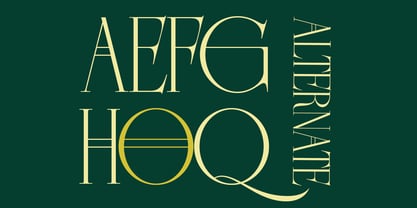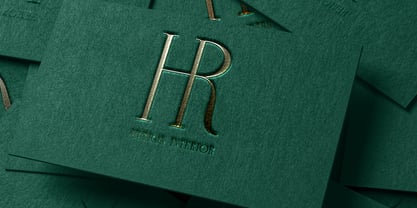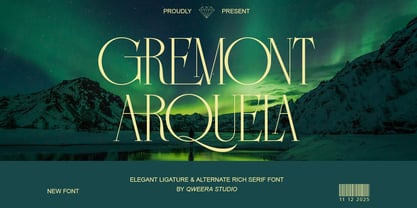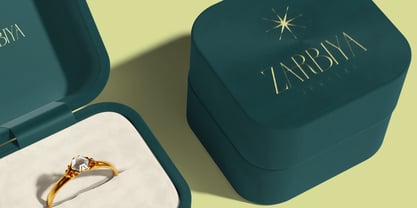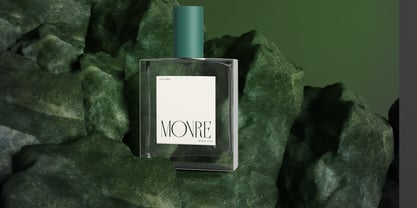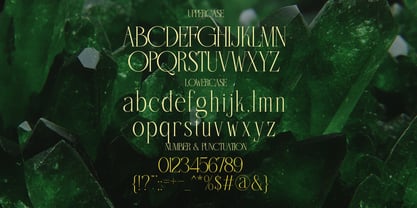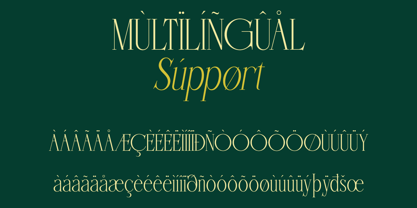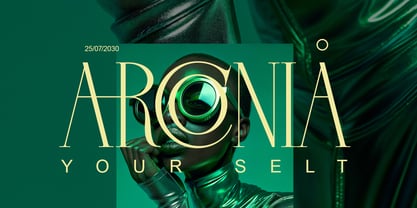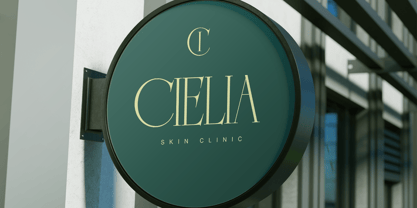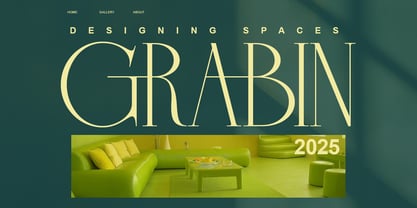
Gremont Arquela
The Gremont Arquela Font Family was designed by Idhham Cholid Rikzano Yahya and published by Qweera Studio. Gremont Arquela contains 2 styles and family package options. More about this family
Gremont Arquela is a luxury elegant serif typeface featuring refined contrast and sophisticated letterforms. Designed for branding and editorial typography, it delivers premium serif styling with cinematic elegance. With alternates, ligatures, and multilingual support, Gremont Arquela offers flexible typography for both print and digital applications. Ideal for designers seeking luxury serif typography. Features Alternates Ligatures Multilingual support Professional kerning Regular & Italic Specifications Language Support: Western, Central Europe Features: Alternates, Ligatures Recommended For Luxury branding, editorial typography, packaging design, fashion identity, premium logo design